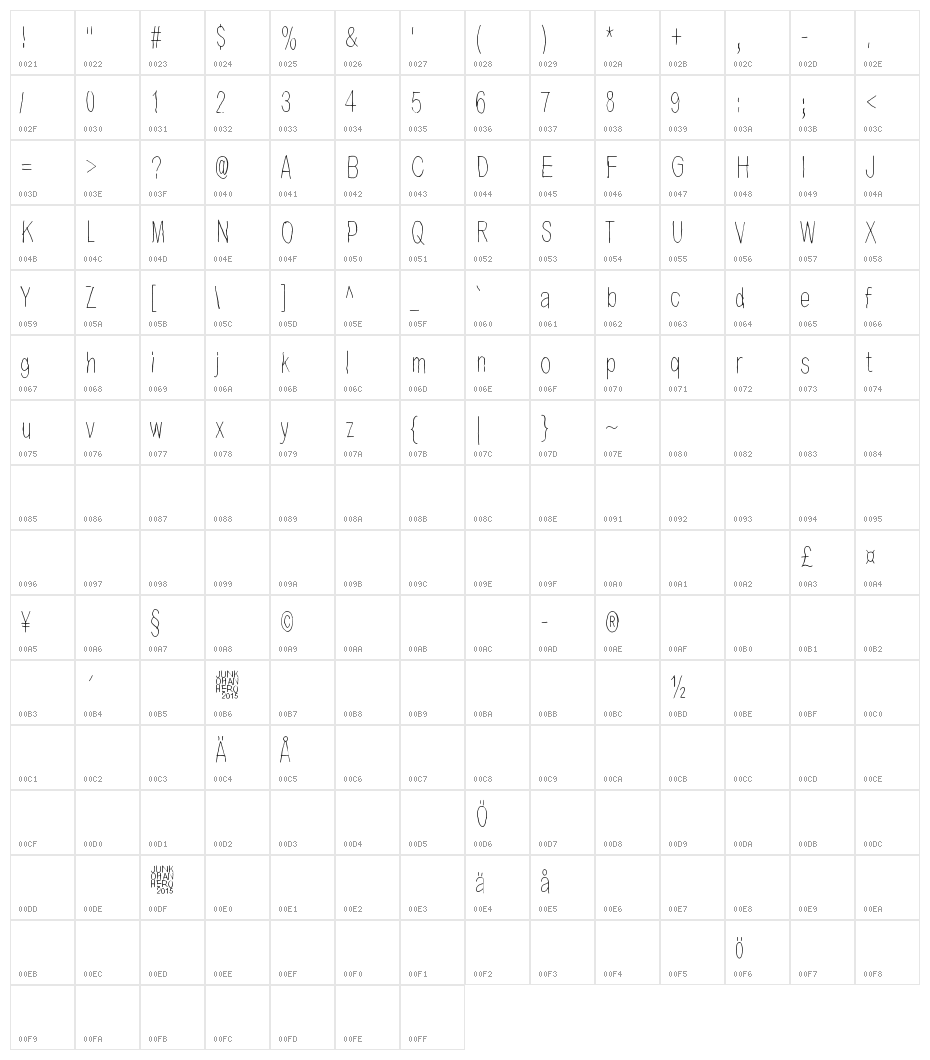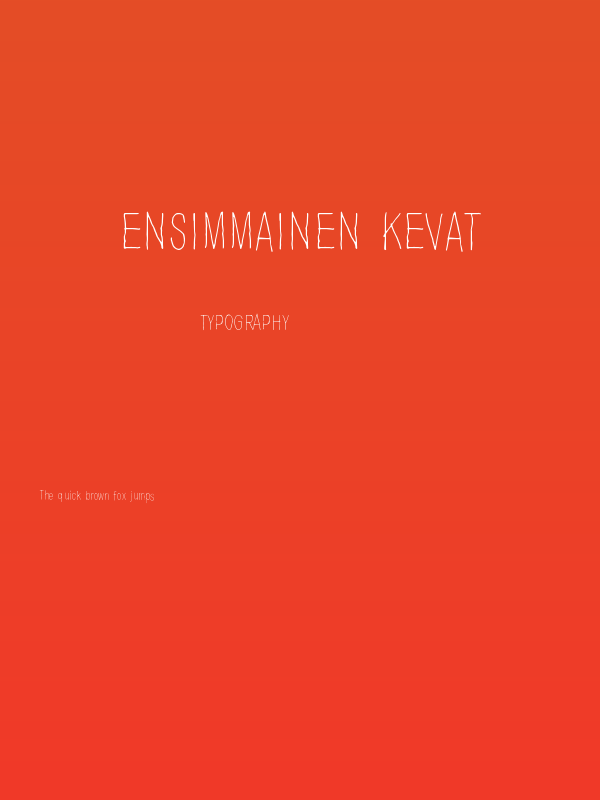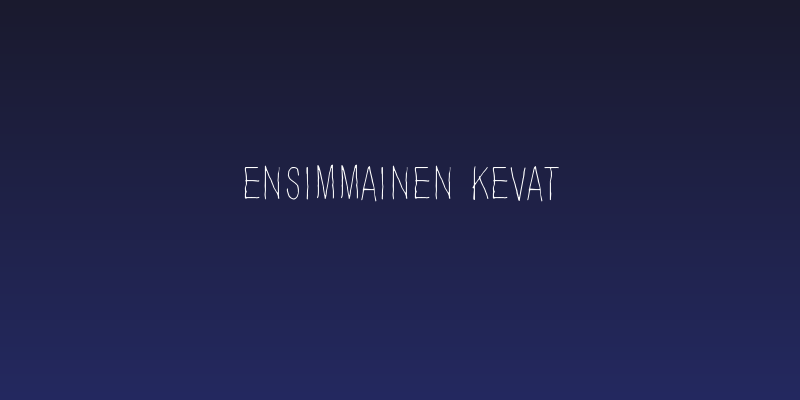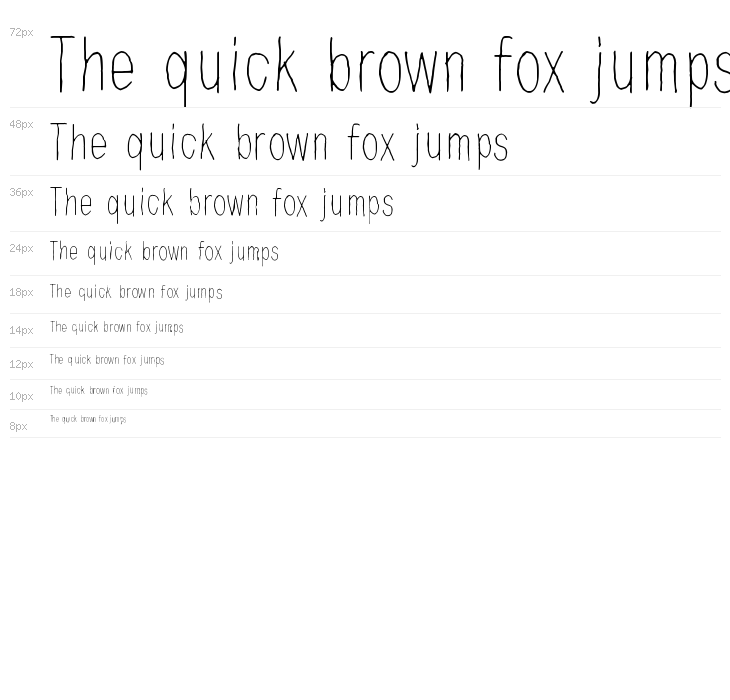
Ensimmainen kevat Font
Ensimmainen kevat Description
This font features a distinct handwritten style with a playful and organic feel. The characters are slightly irregular, giving it a natural and personal touch. The strokes are thin and somewhat uneven, adding to the casual and informal appearance. This font is well-suited for projects that aim to convey a sense of authenticity and warmth. The uppercase and lowercase letters maintain a consistent style, and the numbers and special characters complement the overall design. The font's unique character makes it ideal for creative and artistic applications.
Overall StyleCasual
Use CaseCreative projects, personal notes, artistic branding.
Proposed ProjectsIdeal for greeting cards, personal notes, creative projects, and artistic branding.